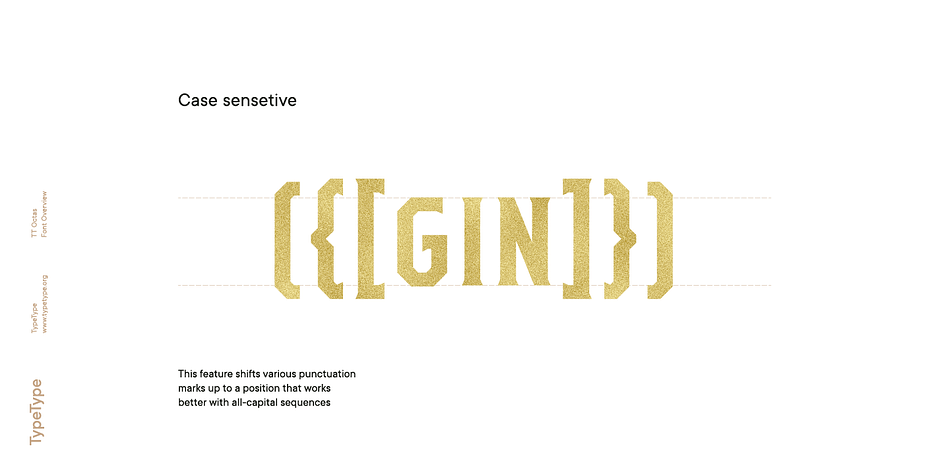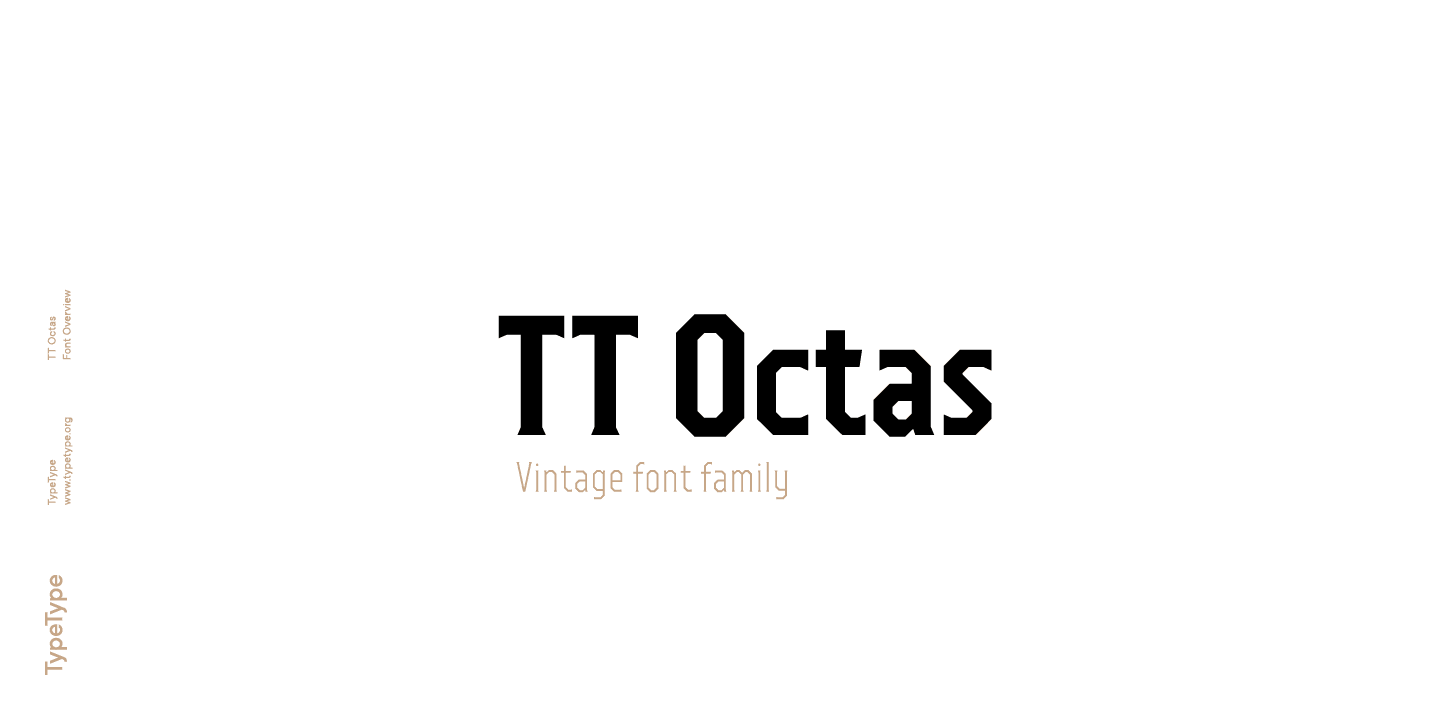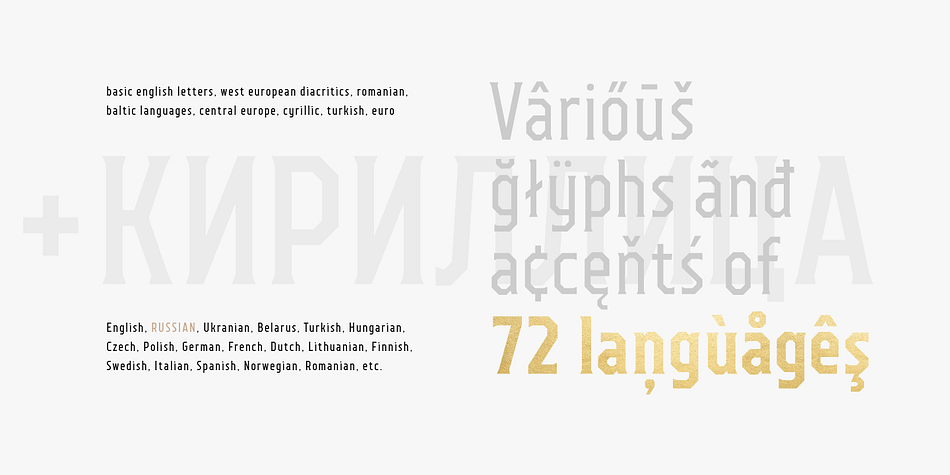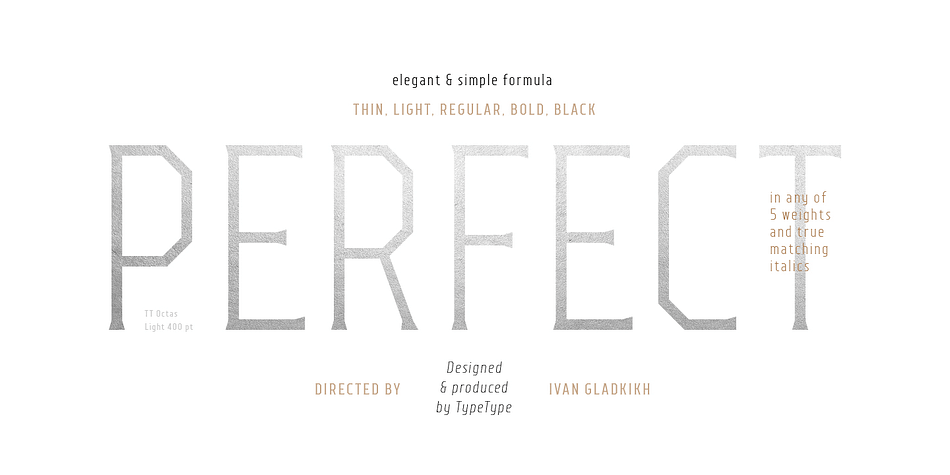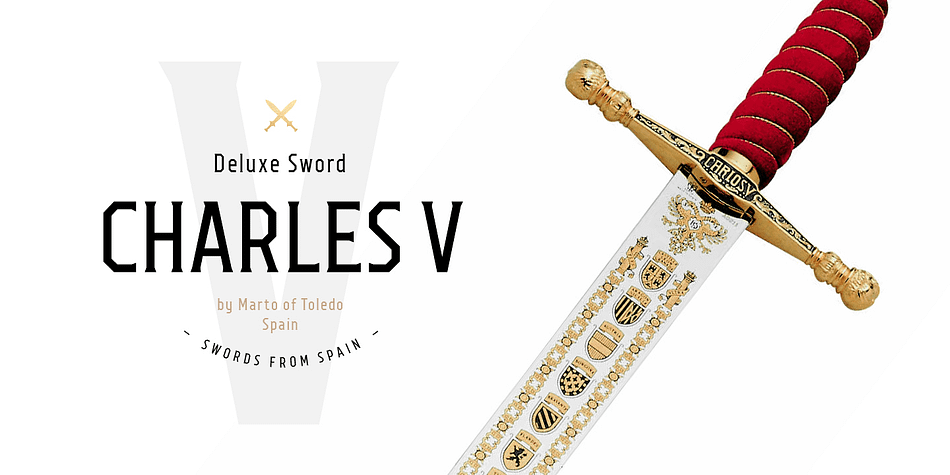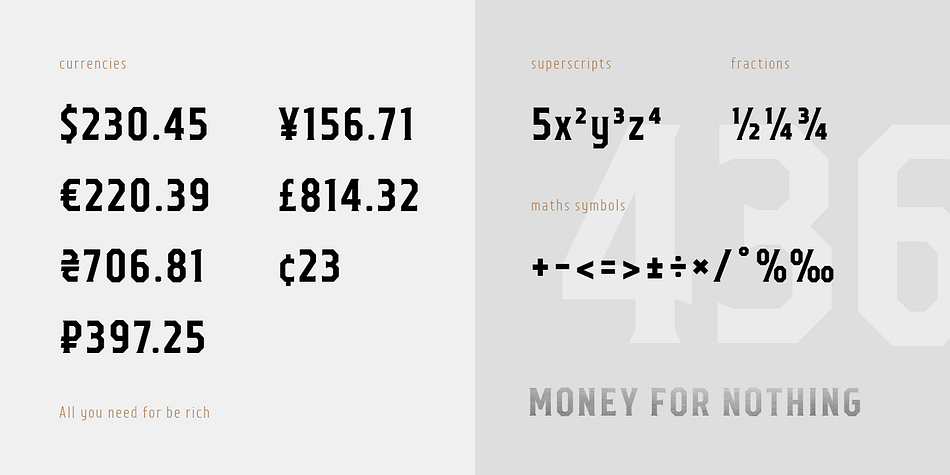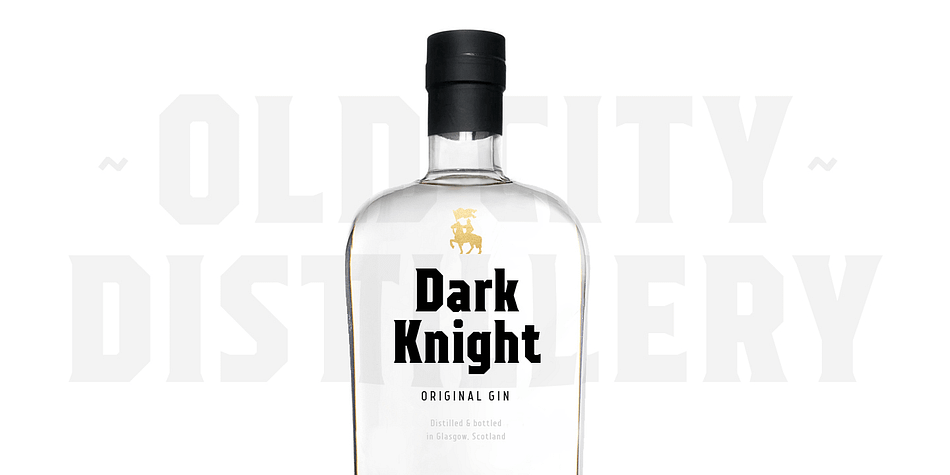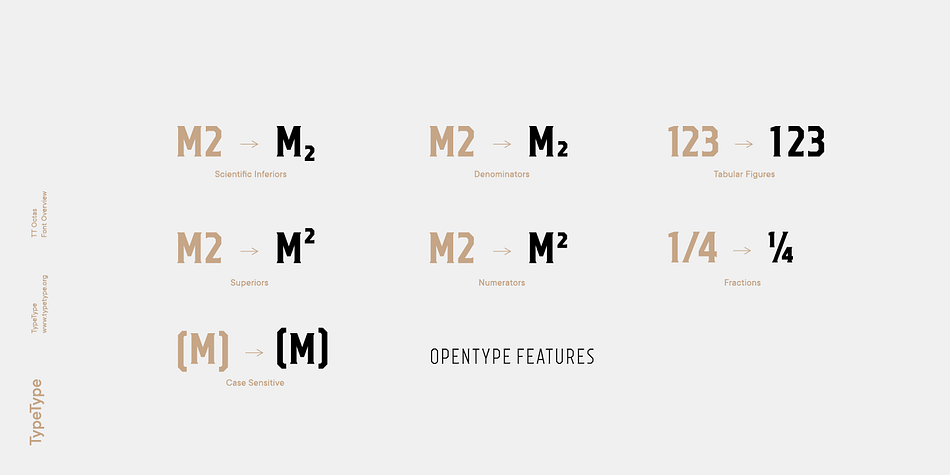
Designed by Ivan Gladkikh, TT Octas is a display serif font family. This typeface has ten styles and was published by Typetype.
TT Octas is a narrowly proportioned font family built upon the principle of octagonal forms: all circles in this font family are actually octagons. Thanks to small serifs, TT Octas has a saturated and vintage character to it. Simple depiction of the letters and the serifs make the family easily readable even in the smallest sizes.
Narrow proportions allow for positioning of large text arrays even in small text fields. This font family is well fitted for brand visual identity and product labeling as well as for all digital media, such as web interfaces and game plays. It is also great for mobile app interfaces.